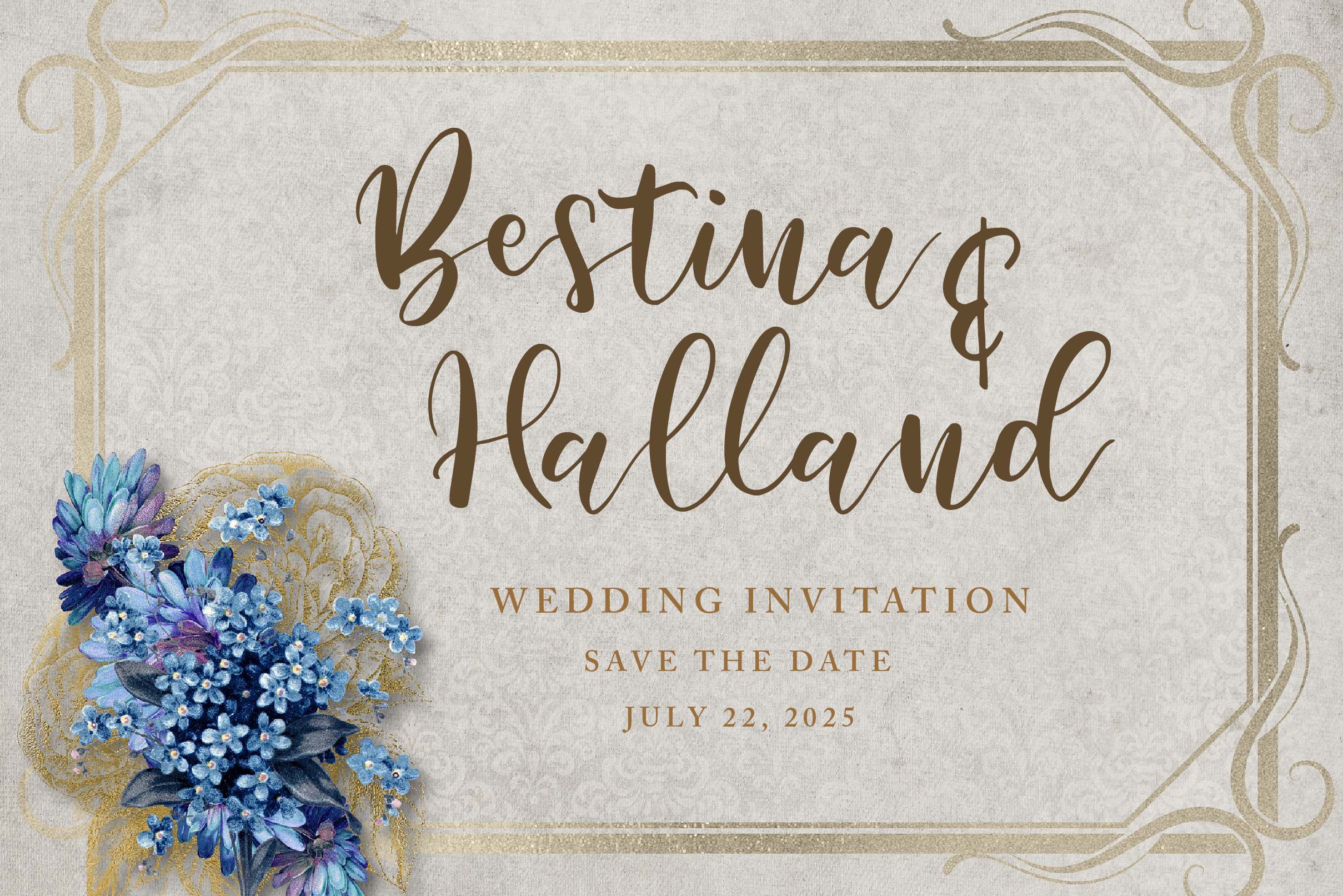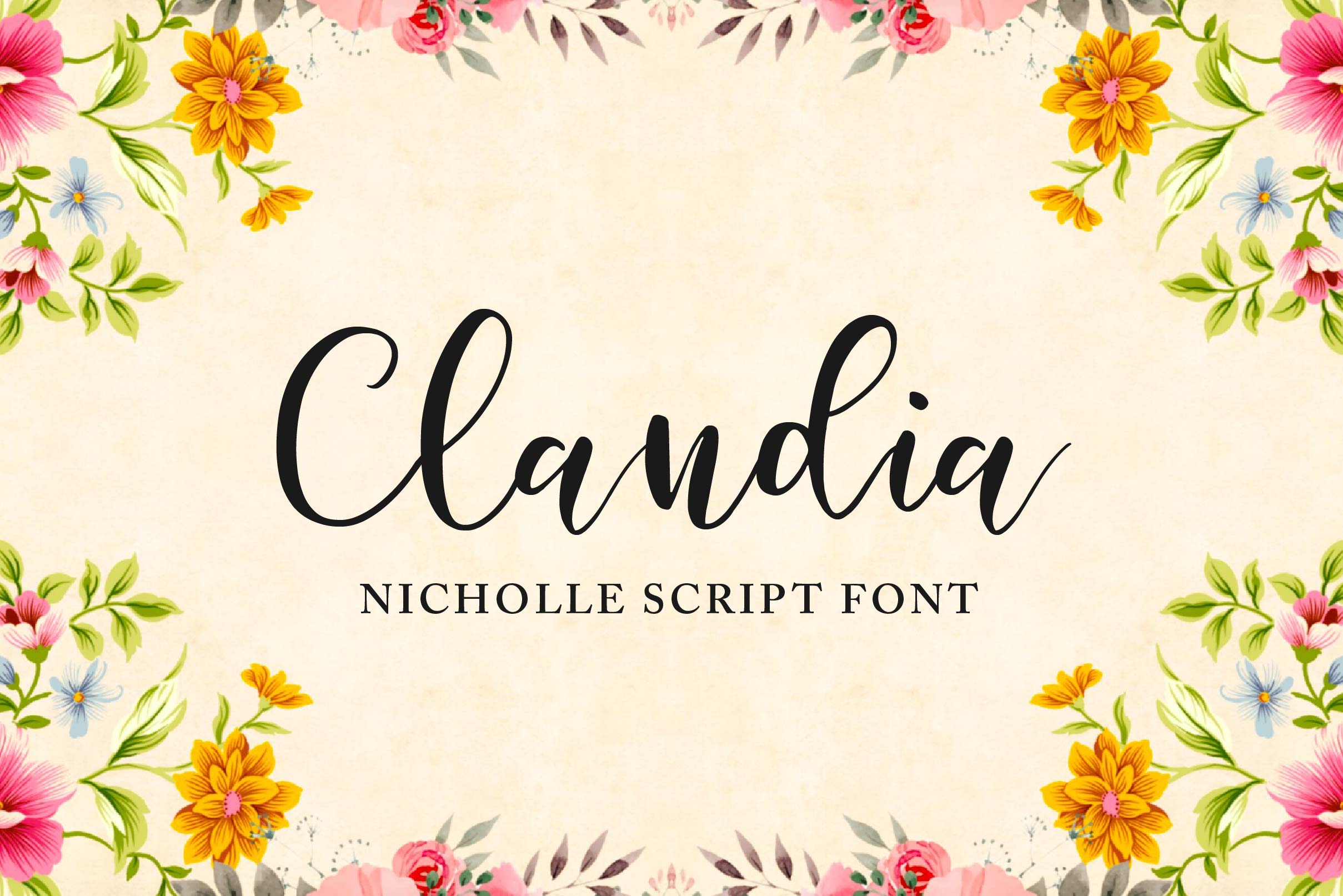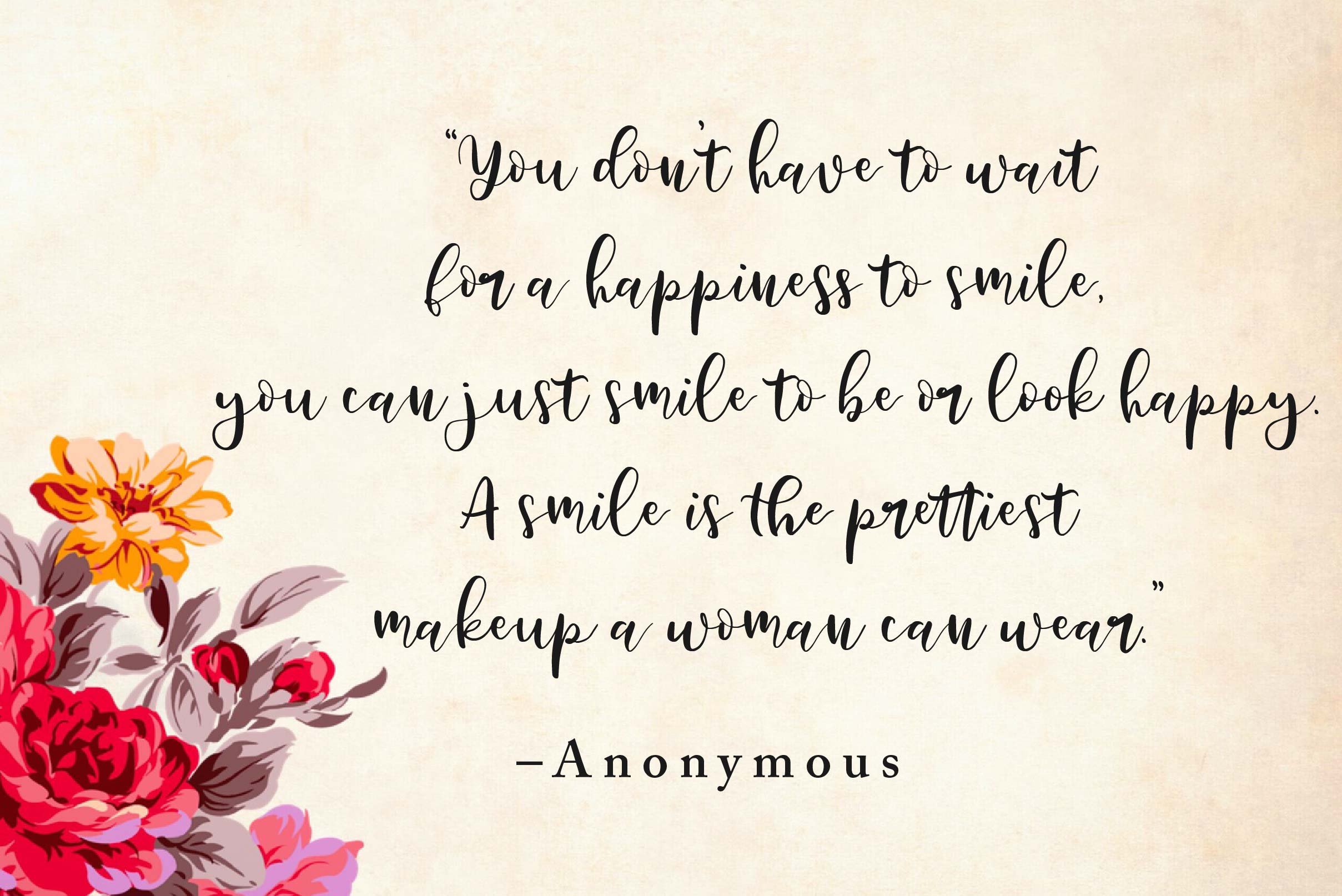
Nicholle Font
Nicholle Script Font is an exquisite handwritten font, masterfully designed to become a true favorite. It maintains its classy calligraphic influences while feeling contemporary and fresh. Fall in love with it and bring your projects to the highest levels!
– Alternate Letters, Ligature & Swash/Tail